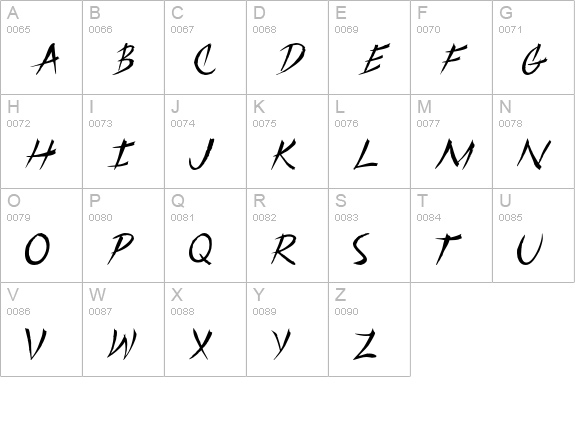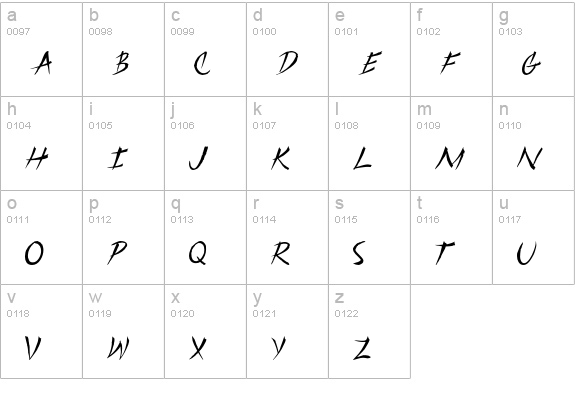
MU Font Details
Introducing MU Font - a stylish and versatile typeface that is perfect for all your design needs. With its sleek and modern look, MU Font is sure to make your projects stand out. This font offers a wide range of weights and styles, making it suitable for various applications, from branding to editorial design. The best part? MU Font is completely free to use! That's right, you can download this amazing font for free at FontsMarket.com. So why wait? Give your designs a fresh and contemporary touch with MU Font today.